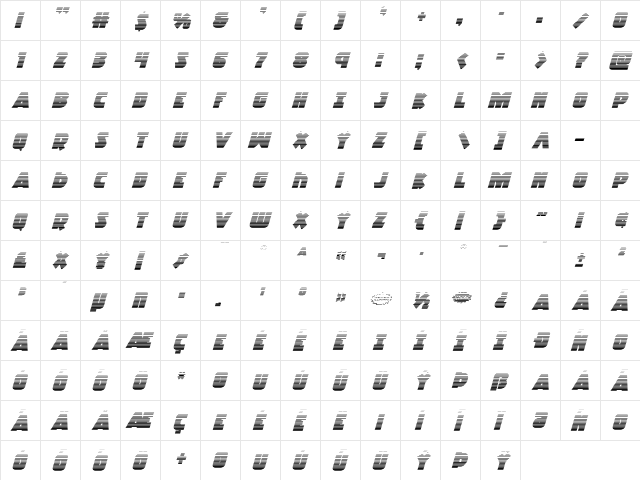
Racket Squad Gradient Italic Italic
Design Context for Racket Squad Gradient Italic Typeface
Racket Squad Gradient Italic is a composed and adaptable typeface that performs quietly and consistently across a wide range of design contexts. Its italic angle brings a sense of urgency and motion to the letterforms.